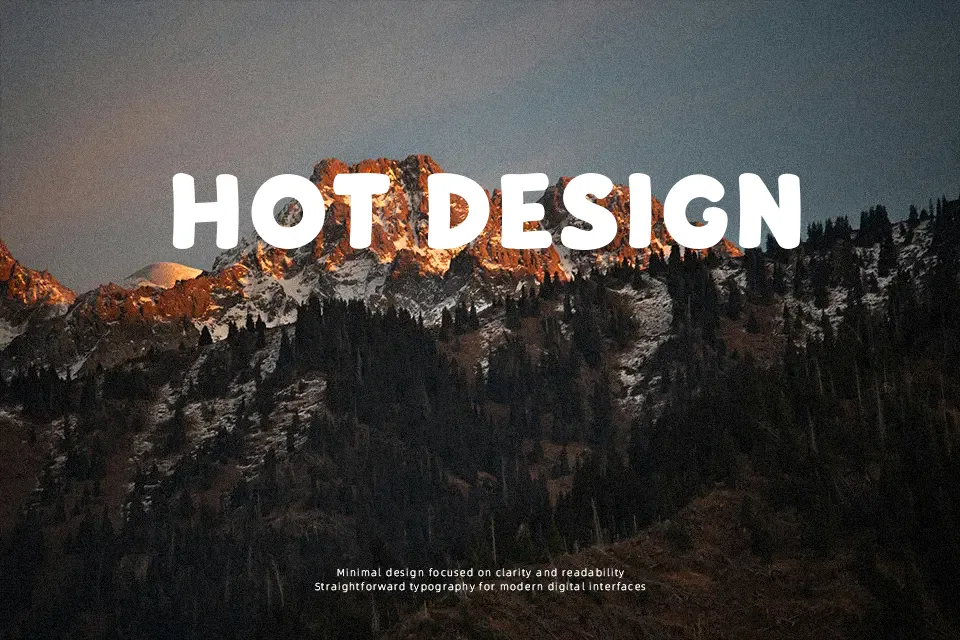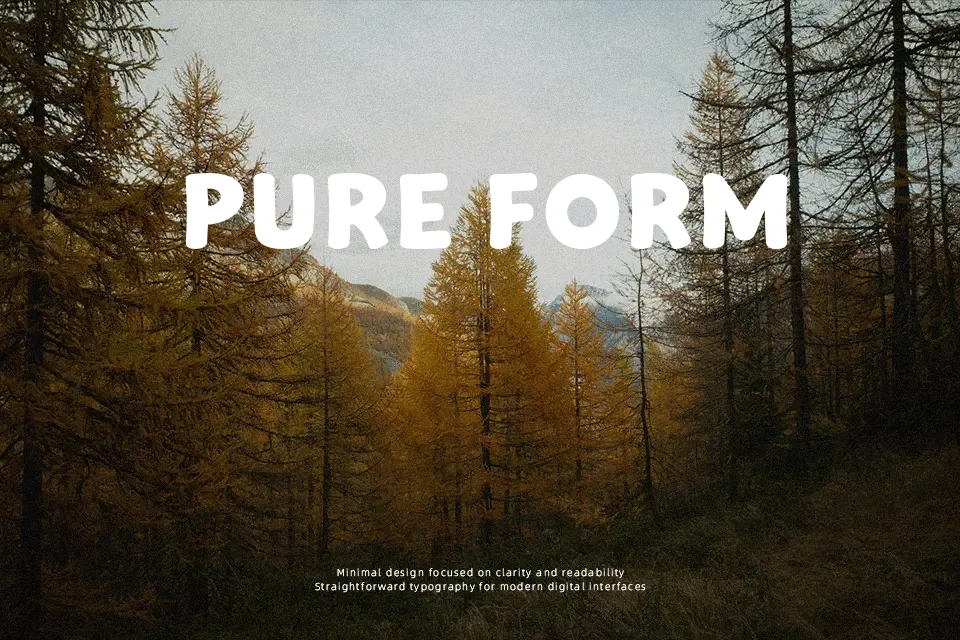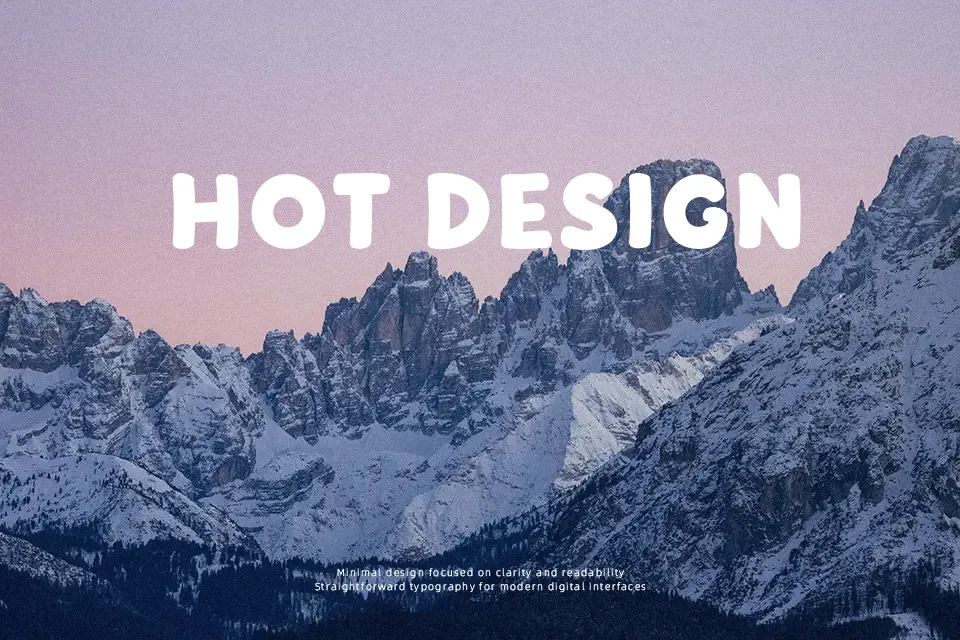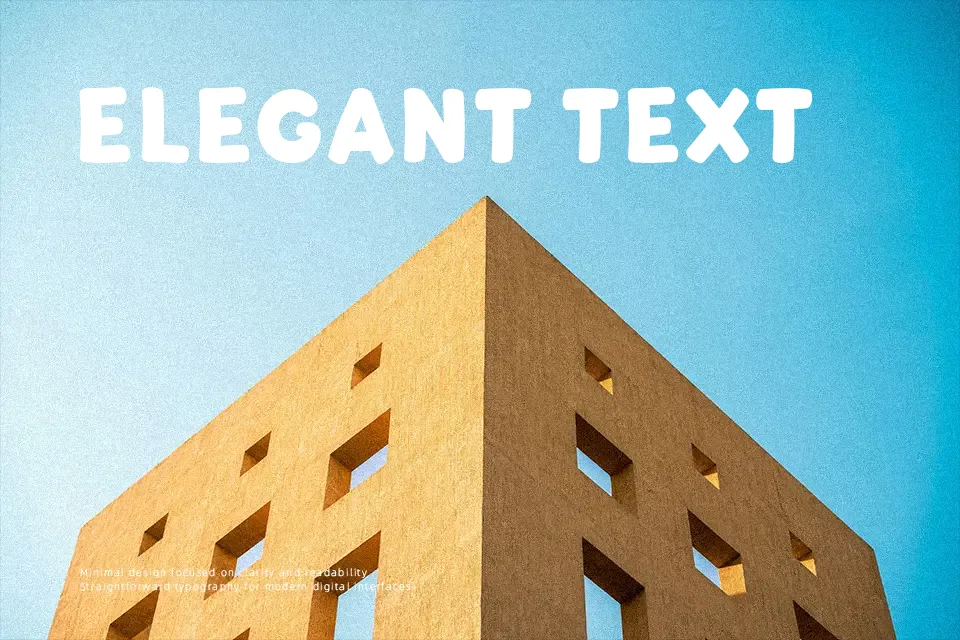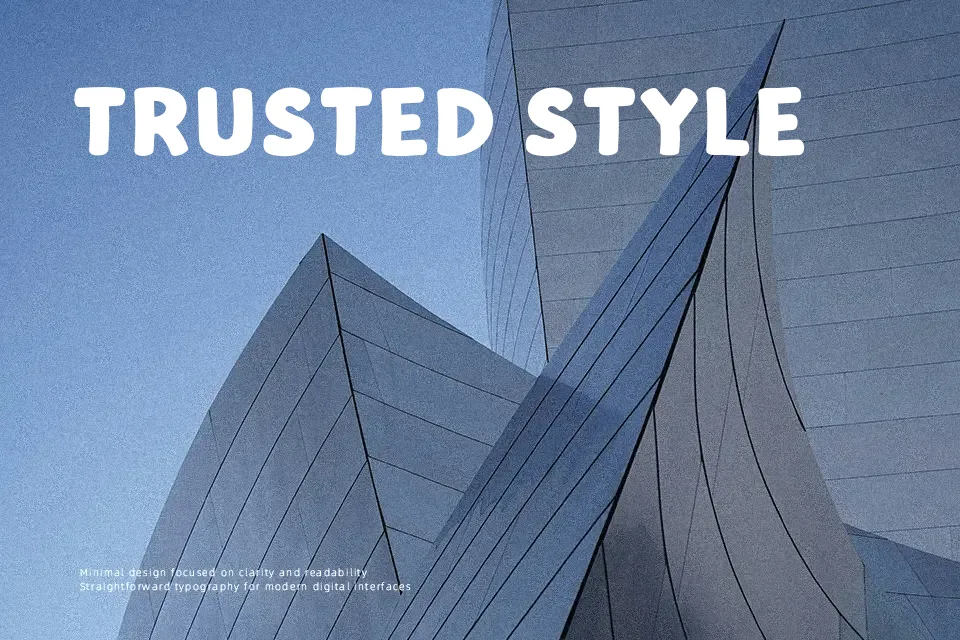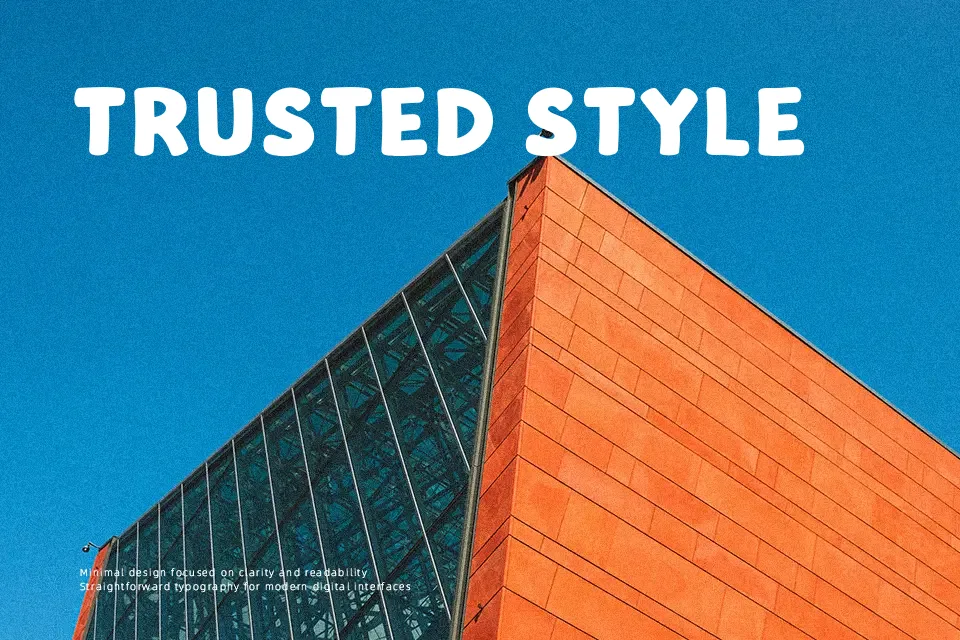
Bake Soda Font
Bake Soda leans on thick, rounded strokes and smooth, flowing curves that give every letter a soft, bouncy silhouette. Spacing is moderately tight, so words form compact, chunky blocks that read as lively shapes rather than strict text lines. The overall impression is informal and cartoonish, with a hint of retro signage that feels at home in kid-focused or playful branding. It works well for short headlines, logos, and packaging where personality matters more than strict readability. However, the heavy forms and decorative rhythm can become tiring in long paragraphs or very small sizes, so it is less effective as body text.
kids’ book or comic titles
snack or candy packaging
playful poster headlines
family-friendly branding logos
long continuous paragraphs
data-heavy editorial layouts
very small UI labels
Perfect for branding, kids, and logo, with a creative and cartoon style.